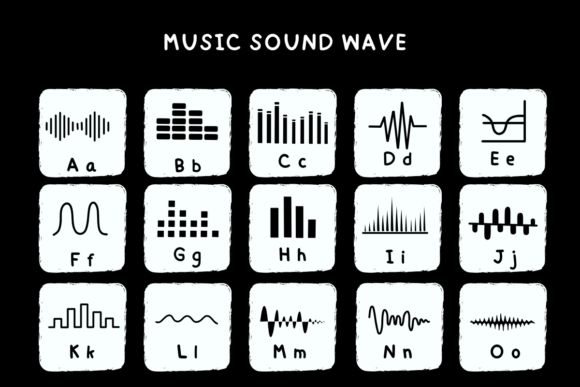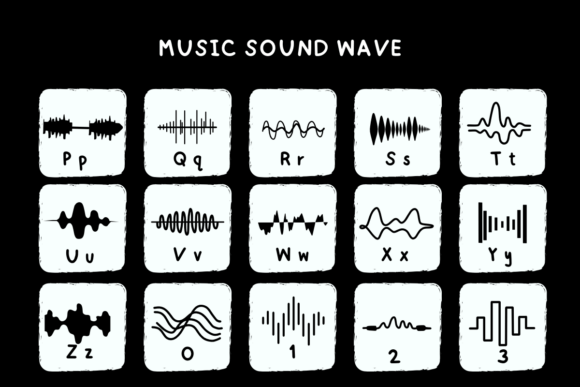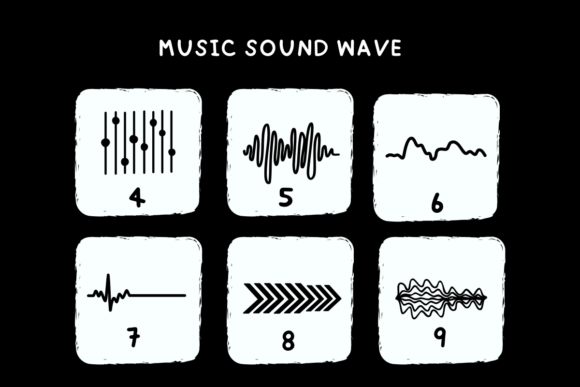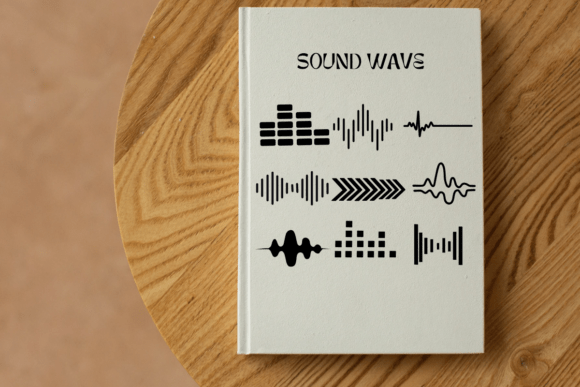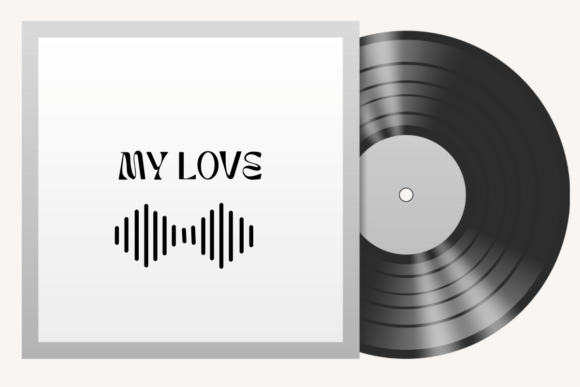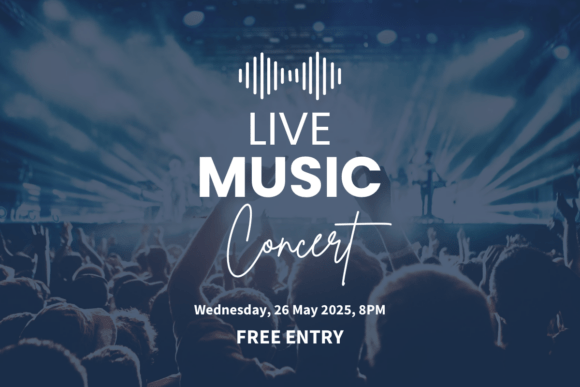
Introduction to Music Sound Wave Font
As a designer, have you ever found yourself stuck in a creative rut, yearning for that perfect visual element to elevate your project? I recall a moment when I was working on a wedding invitation design, and I desperately needed a unique and eye-catching element to make it stand out. That’s when I stumbled upon the Music Sound Wave Font – a dingbats font with a sketched theme that transformed my design into a masterpiece.
Key Features of Music Sound Wave Font
- Unique and Creative Design: Music Sound Wave Font is a high-quality design resource perfect for a creative project, offering a unique and eye-catching visual effect.
- Transparent Background: The font features a transparent background, allowing users to easily combine it with other design elements and backgrounds.
- High Resolution: The font is available in high resolution, making it perfect for use in large-scale designs and prints.
- Customizable: The font can be easily customized to fit the needs of your design project, allowing you to adjust the size, color, and style to suit your creative vision.
- Perfect for Music-Themed Designs: With its unique sound wave design, Music Sound Wave Font is perfect for music-themed designs, including album art, concert posters, and music-related websites.
Honest Review: Music Sound Wave Font
As a designer, I’m always on the lookout for unique and creative design resources to enhance my projects. The Music Sound Wave Font is a high-quality font that caught my attention, and I’m excited to share my honest review.
Here are some things that work well with this font:
- ✨ Unique and creative design: The Music Sound Wave Font is perfect for a creative project that requires a touch of innovation.
- ✨ High-quality design: The font is well-designed and visually appealing, making it a great addition to any design project.
- ⚠️ Limited character set: The font only includes a limited character set, which may not be suitable for all design projects.
- ⚠️ Not suitable for all backgrounds: The font is designed to work best with a transparent background, which may not be suitable for all design projects.
Overall, I’m impressed with the Music Sound Wave Font. It’s a great addition to any design resource collection, and I would definitely recommend it for creative projects that require a unique and high-quality font. However, designers should be aware of the limitations and use it accordingly.
The Music Sound Wave Font is perfect for music-related projects, such as posters, flyers, and social media graphics. It’s also great for adding a creative touch to presentations, documents, and websites. With its high quality design and transparent background, the possibilities are endless.
To get the most out of the Music Sound Wave Font, experiment with different sizes, colors, and combinations with other fonts. Use it to add a creative touch to your designs and make them stand out. With a little creativity, the Music Sound Wave Font can take your designs to the next level.